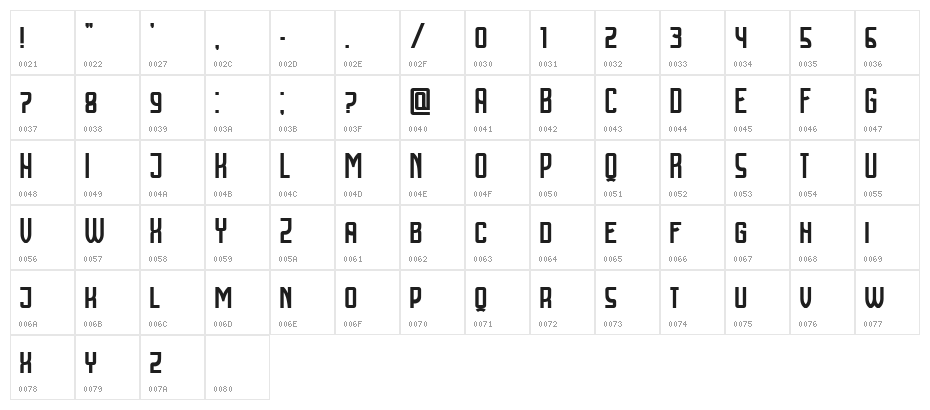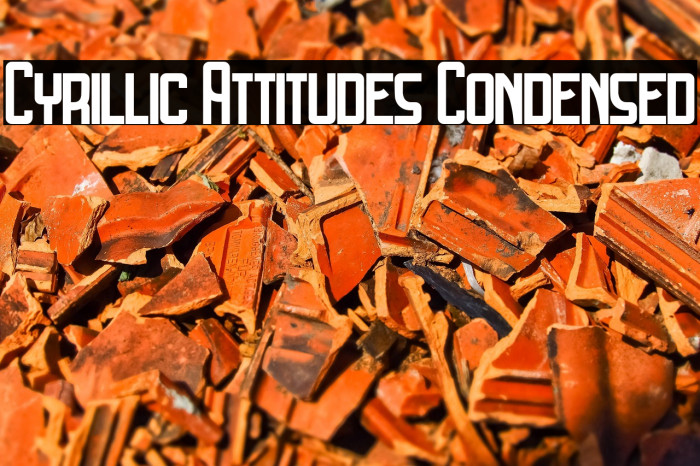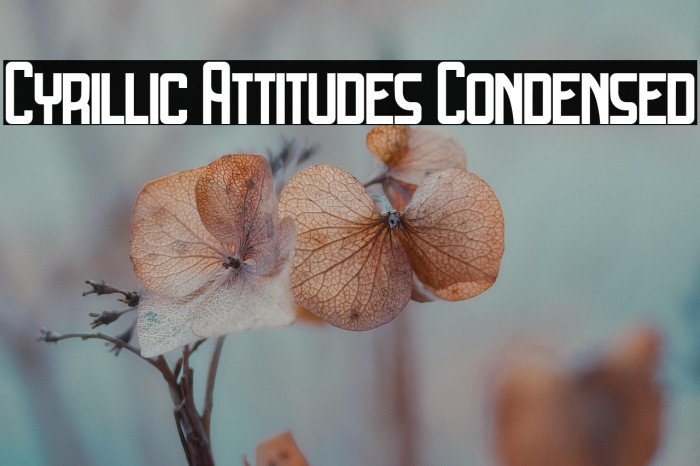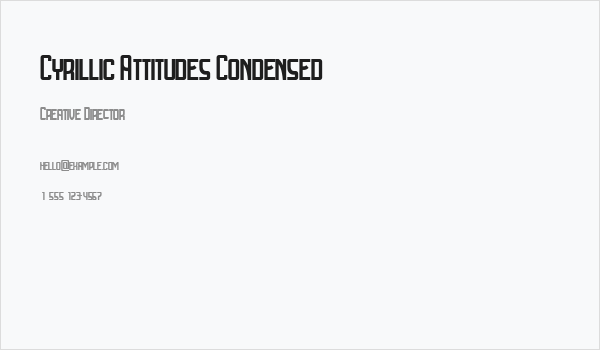
Cyrillic Attitudes Condensed Font
Cyrillic Attitudes Condensed Description
This font features a bold and condensed style with a modern, geometric appearance. The characters are uniformly tall and narrow, creating a striking and impactful visual presence. The uppercase letters exhibit a unique design with sharp angles and clean lines, giving them a futuristic feel. The numbers and special characters maintain the same condensed and bold characteristics, ensuring consistency across all glyphs. The overall design is sleek and minimalistic, making it suitable for projects that require a strong and contemporary aesthetic.
| Proposed Projects | Ideal for branding, posters, headlines, and any design requiring a bold, modern look. |